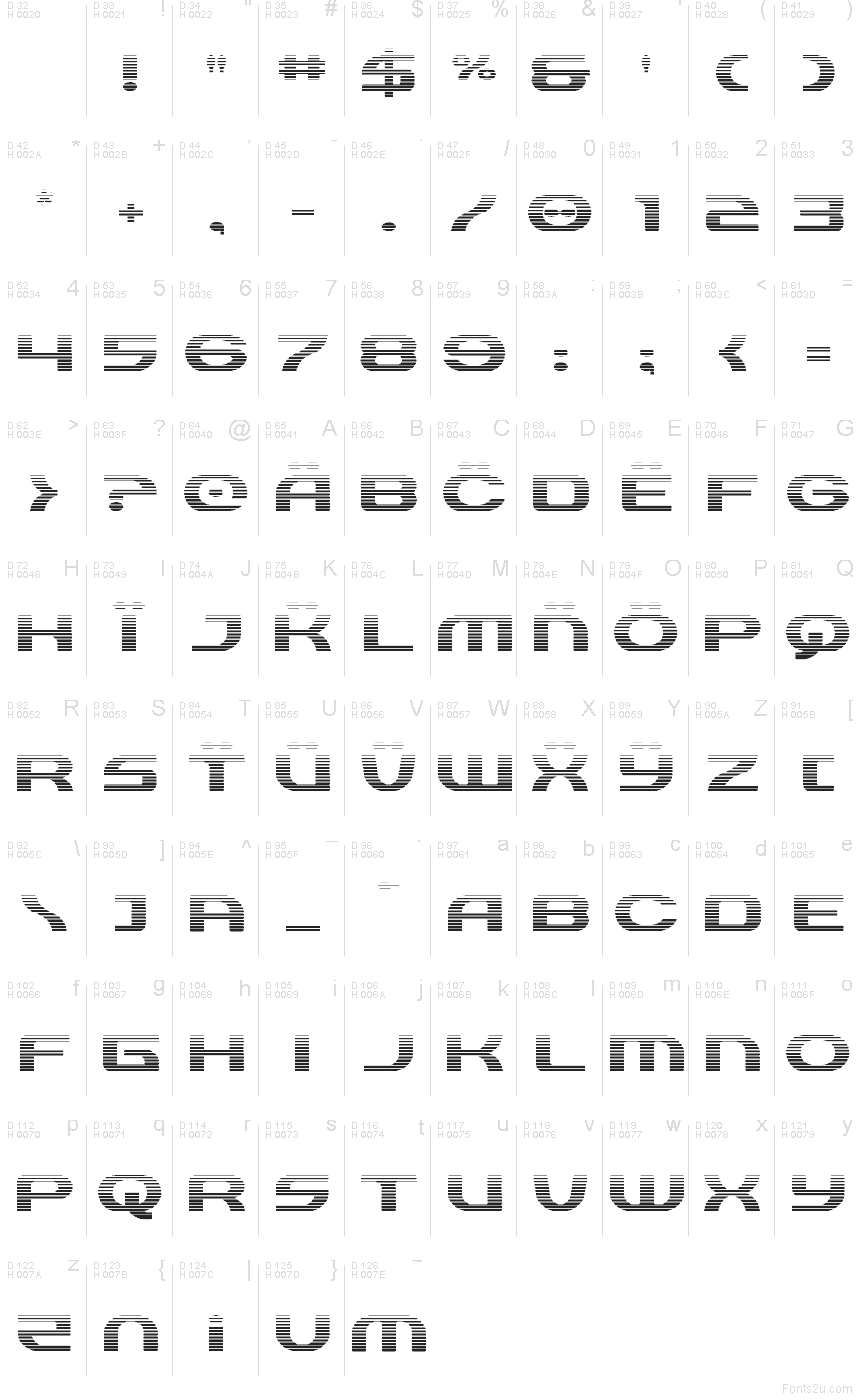
vOiture Gradient by Iconian Fonts is a free striped techno display font built from crisp horizontal bands. Its broad, rounded letters recall retro science fiction and electronic graphics.
That futuristic connection makes it a natural fit for music packaging and event posters. The repeating lines can echo equalizer bars, scan lines, or speed trails in game graphics and merchandise. It is especially effective for magazine cover lines about electronic music, arcade culture, or vintage technology.
vOiture Gradient
Daniel Zadorozny